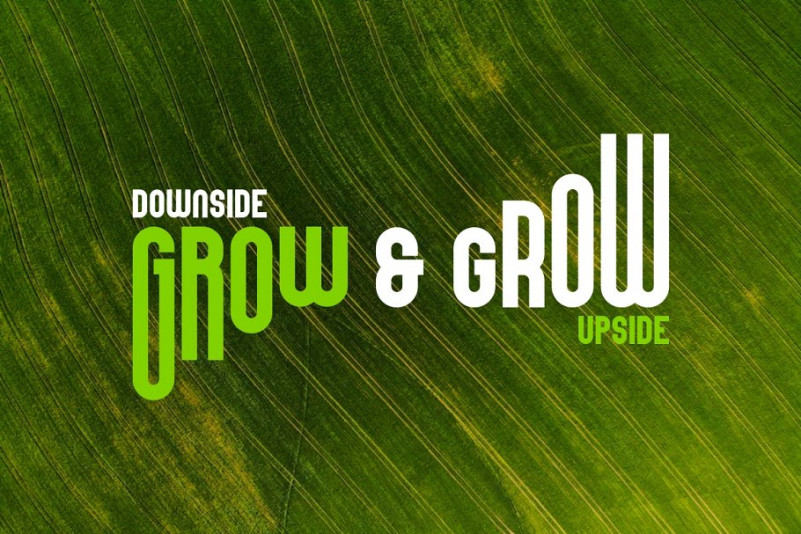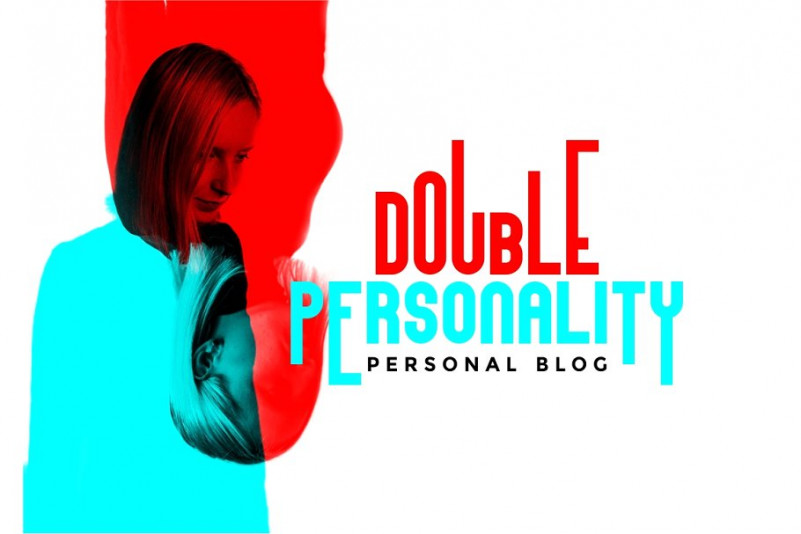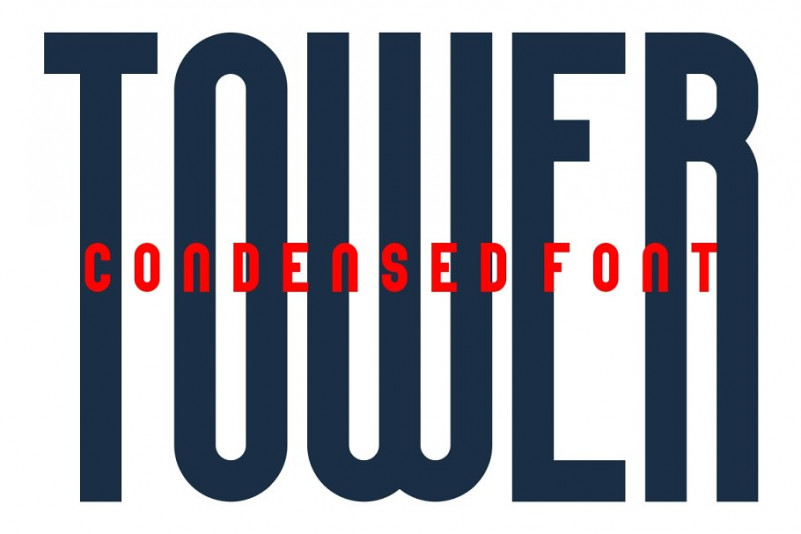
High Mount Typeface
A new display typeface. This font style is intended as a pure display font, and performs at its best in headlines and big titles, it does an amazing job in logo design, brands and labels. Introducing HighMount Font. High Mount Typeface with variations of different heights. This font has three heights up and down. starting from normal, medium, high and very high. This tyepeface is Unique and very suitable for logos, Tshirt, apparel, quote, handwritten quotes, product packaging, tittle header, poster, merchandise, social media, labels, branding & greeting cards.